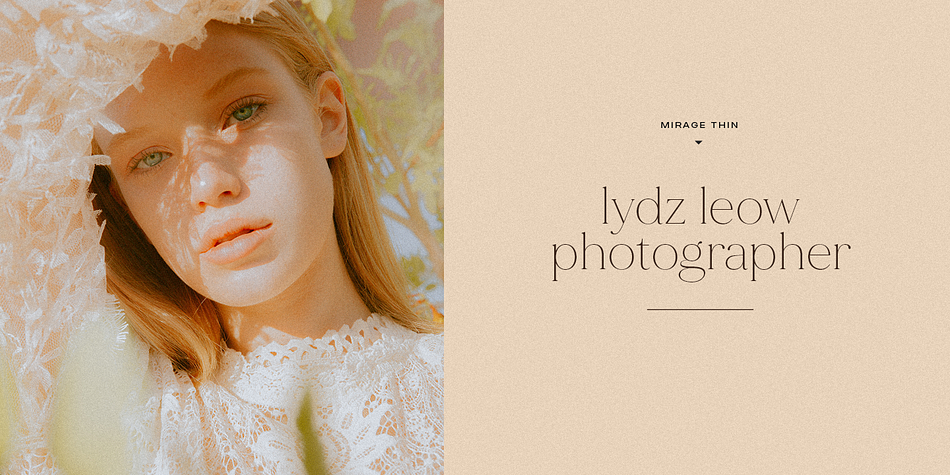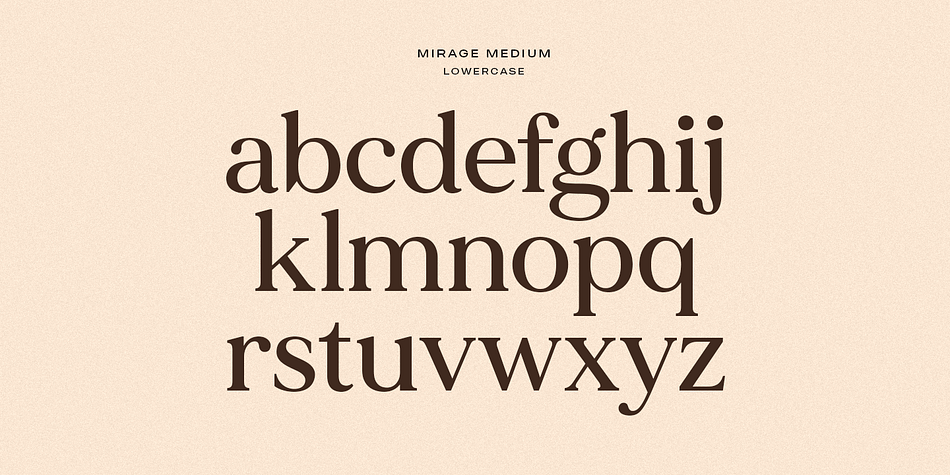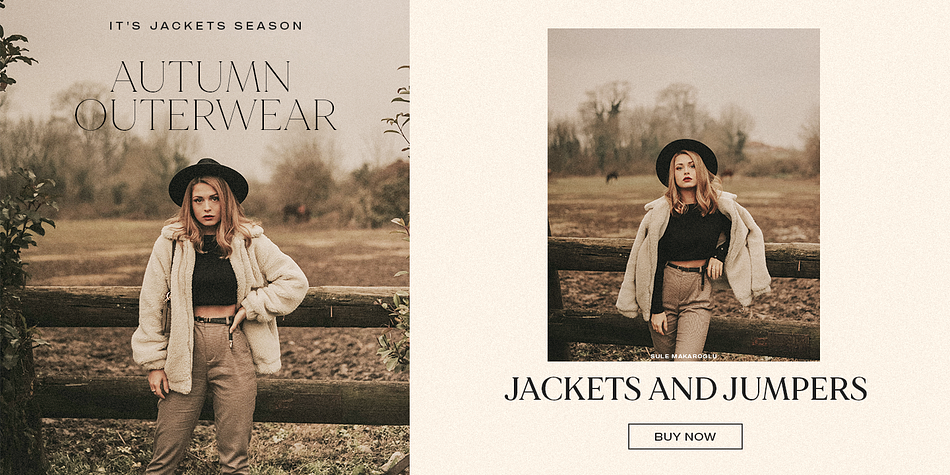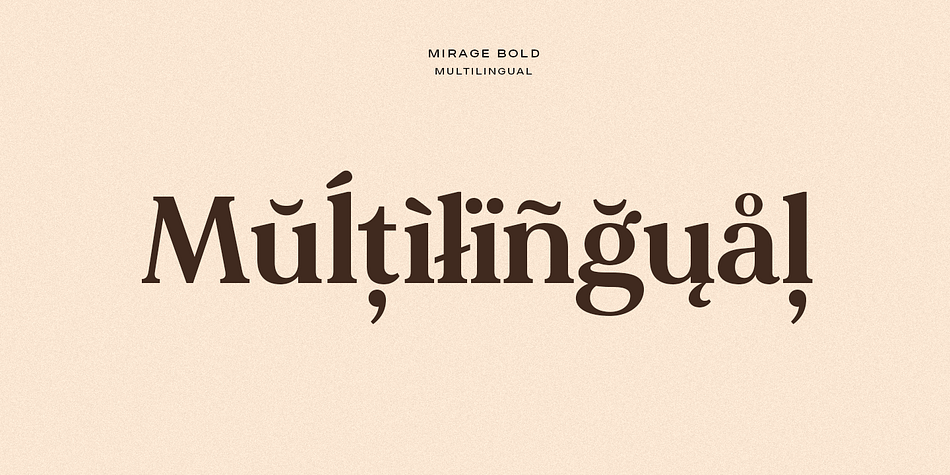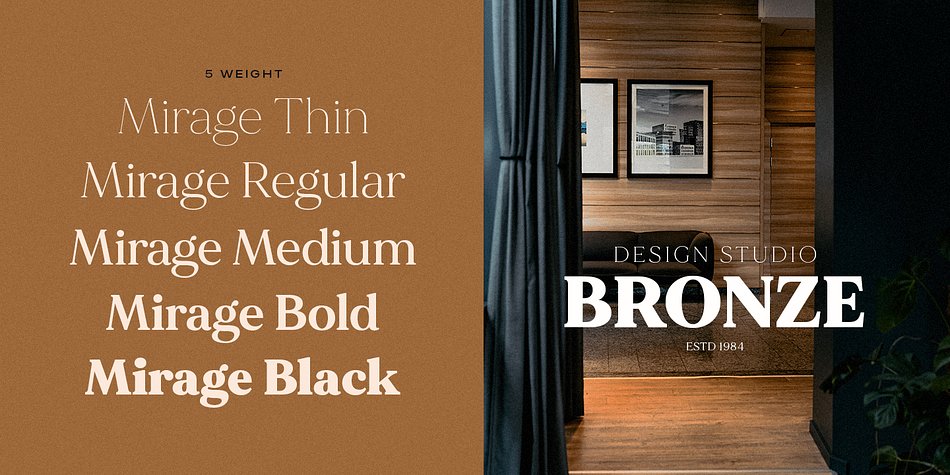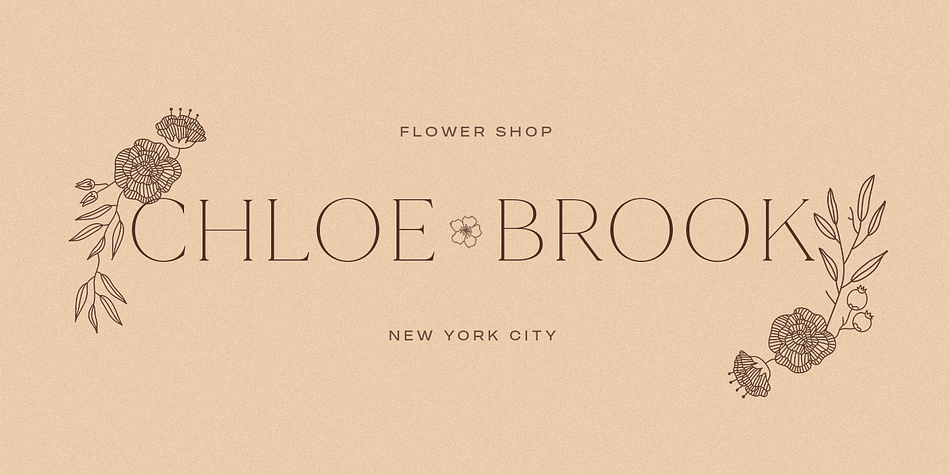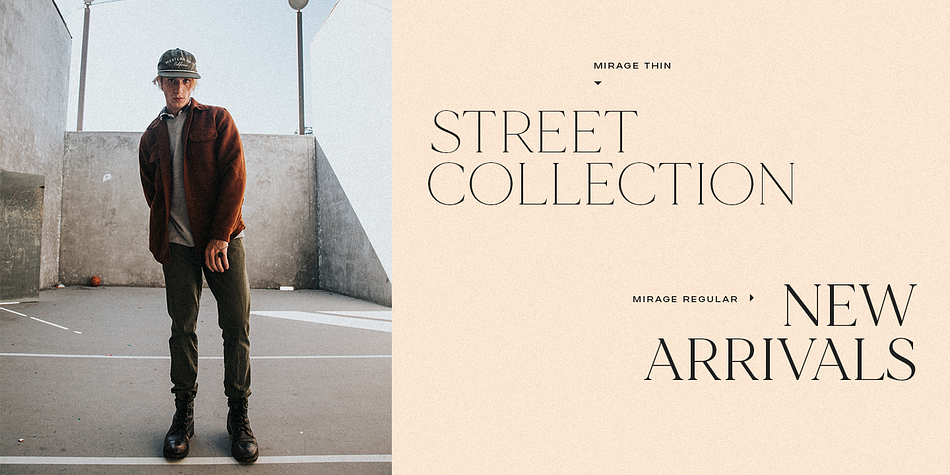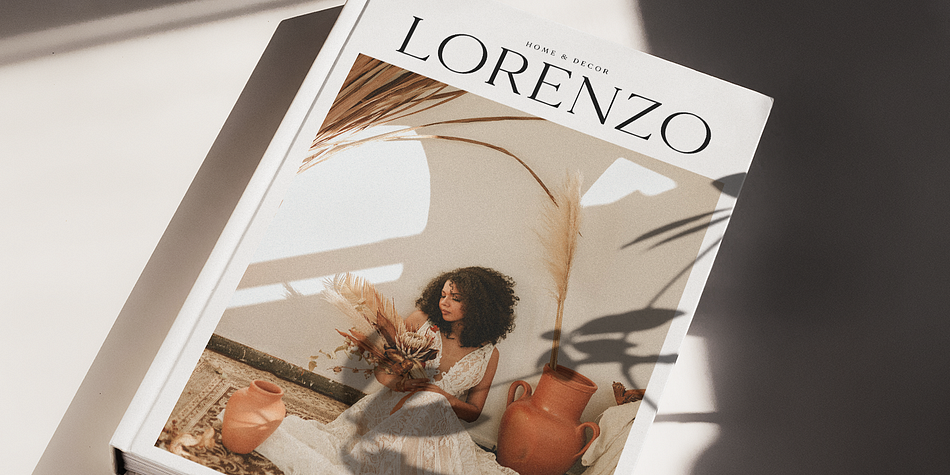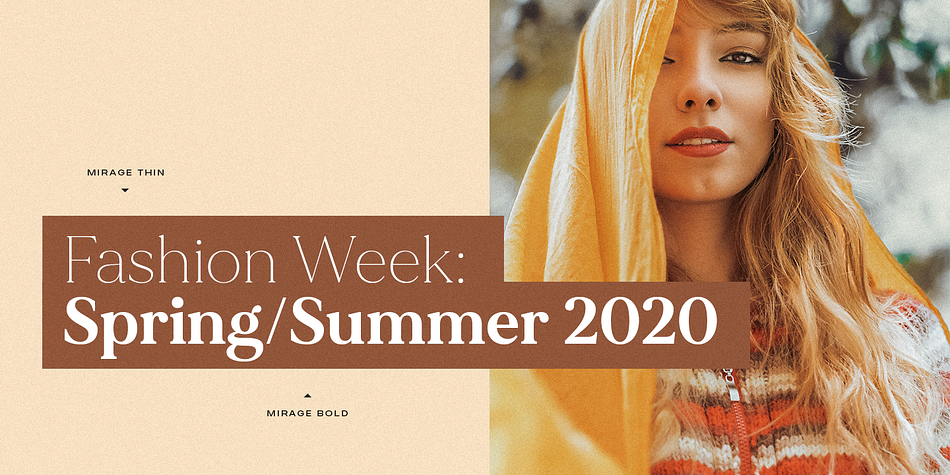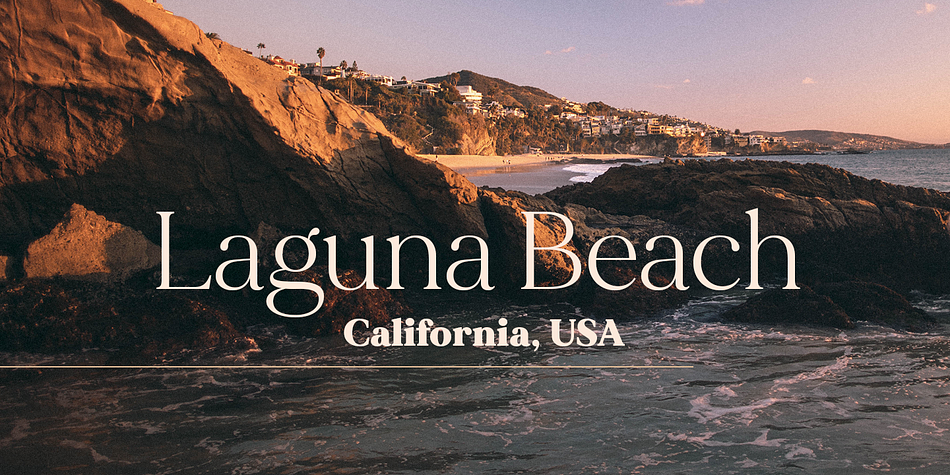
Designed by Maxim Schepin and Denis Schepin, MADE Mirage is a serif font family. This typeface has five styles and was published by MadeType.
MADE Mirage is a modern elegant serif font family.
MADE Mirage will perfect for many project: fashion, magazines, logo, branding, photography, invitations, wedding invitation, quotes, blog header, poster, advertisements, postcard, book, websites, etc.